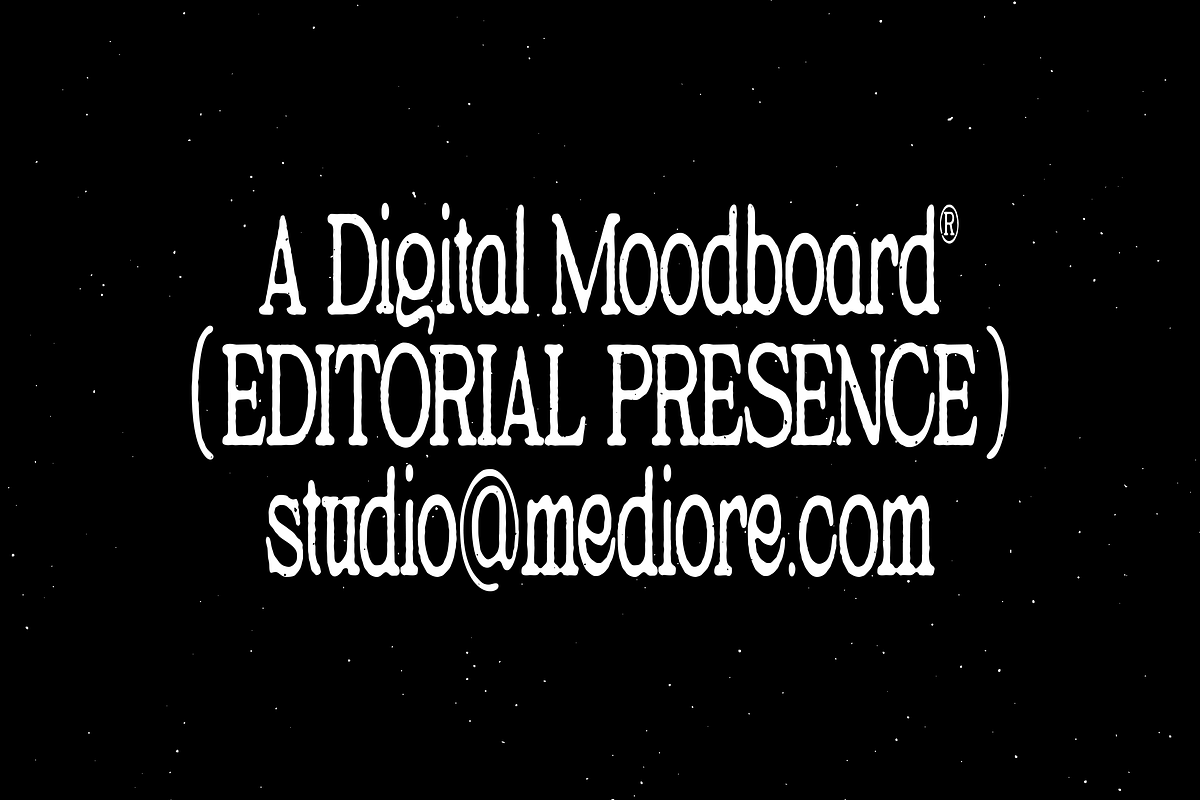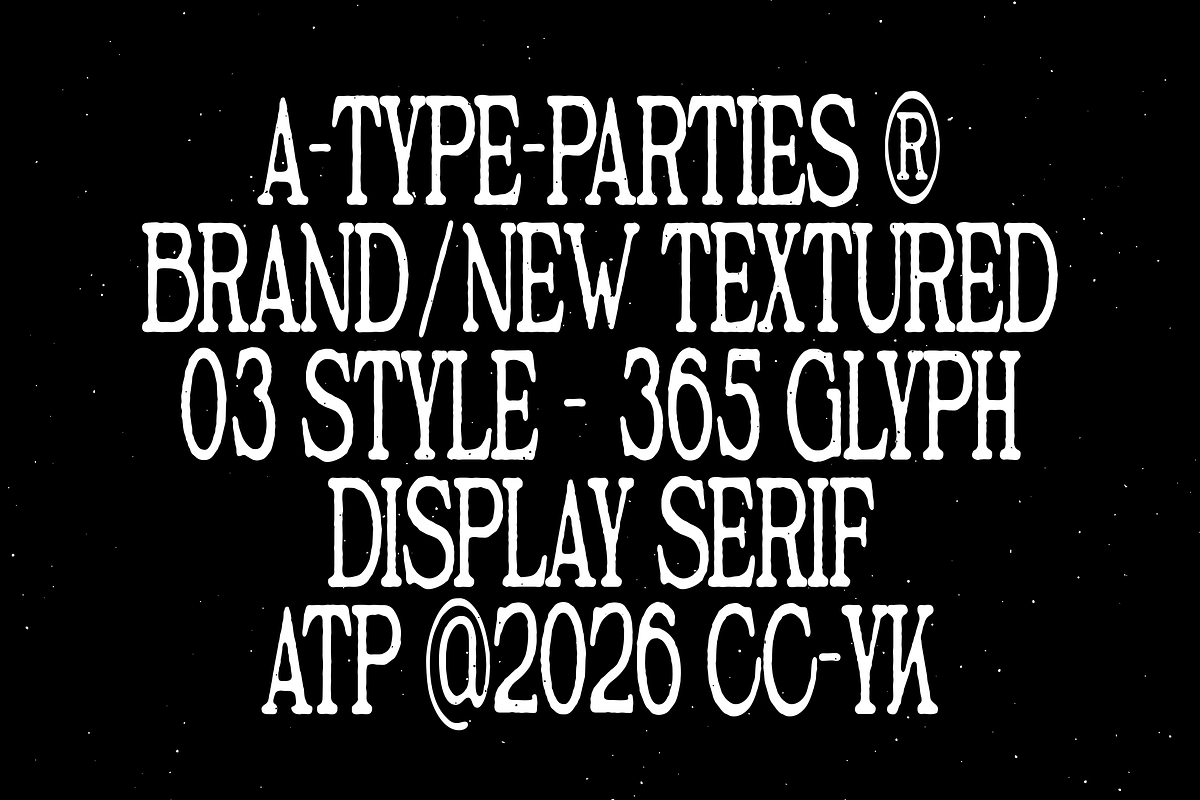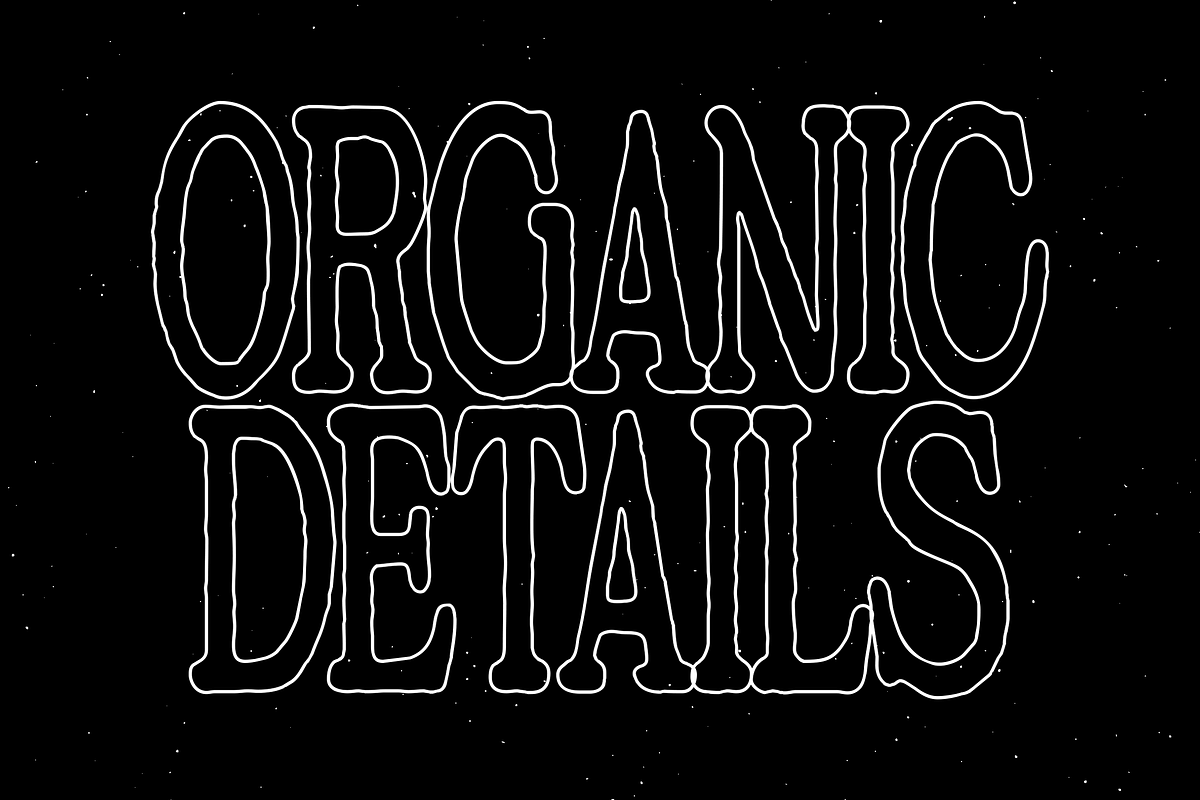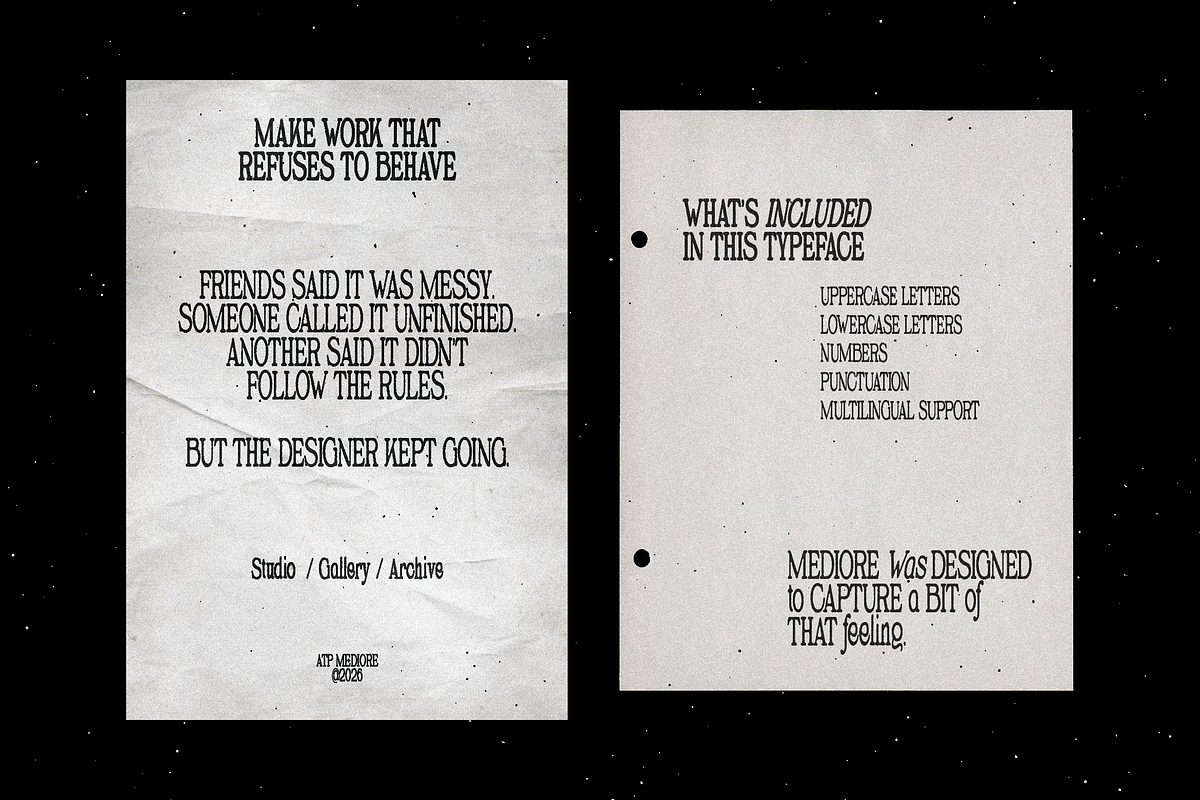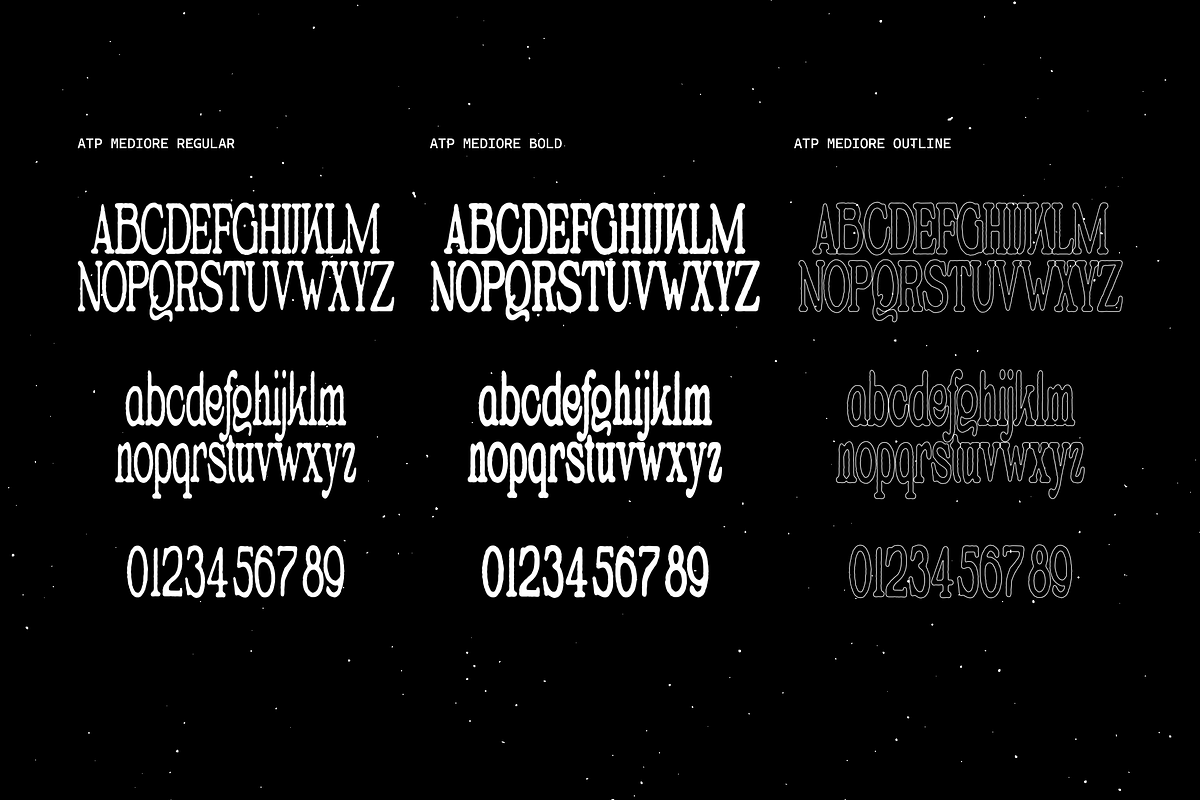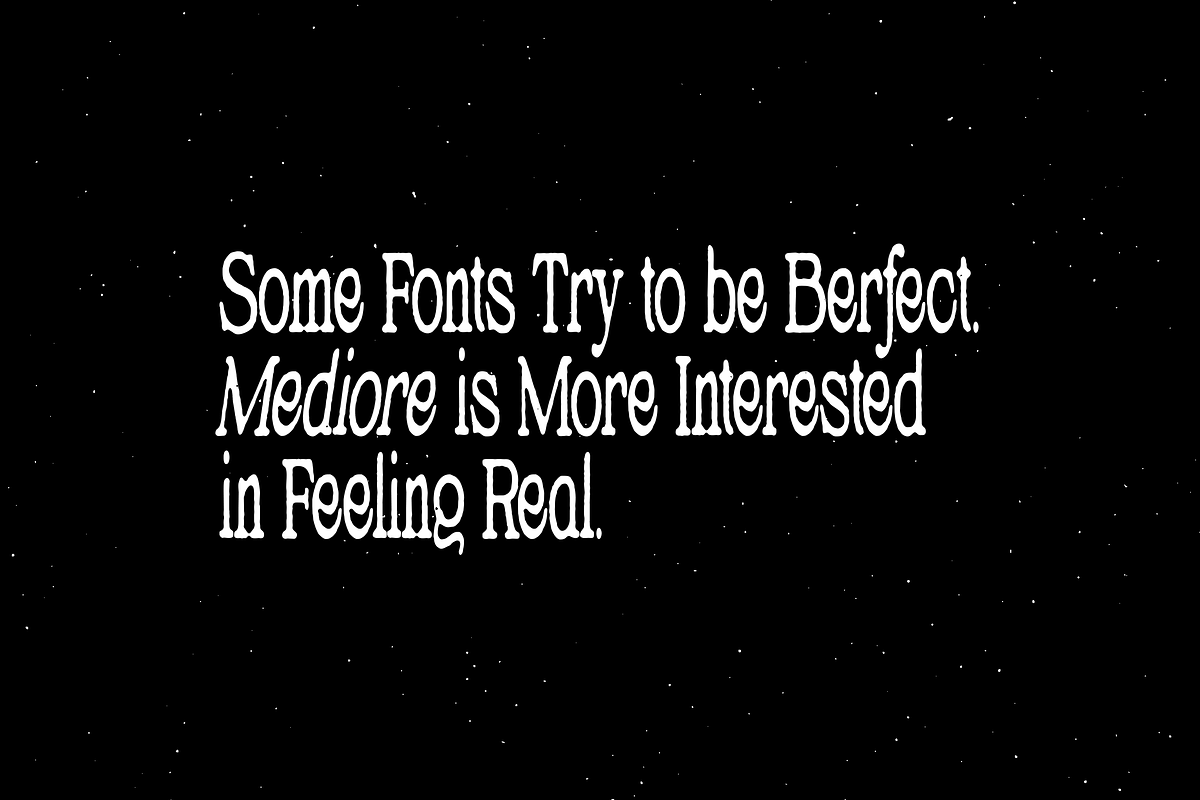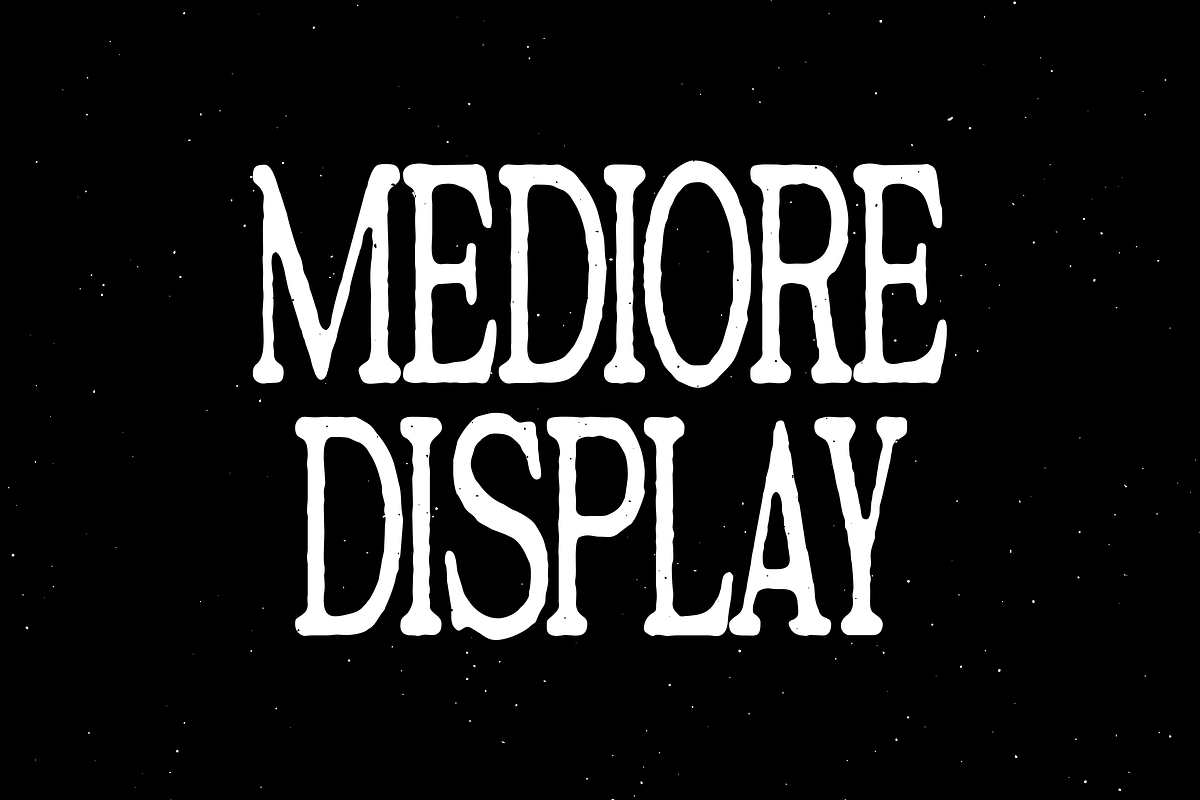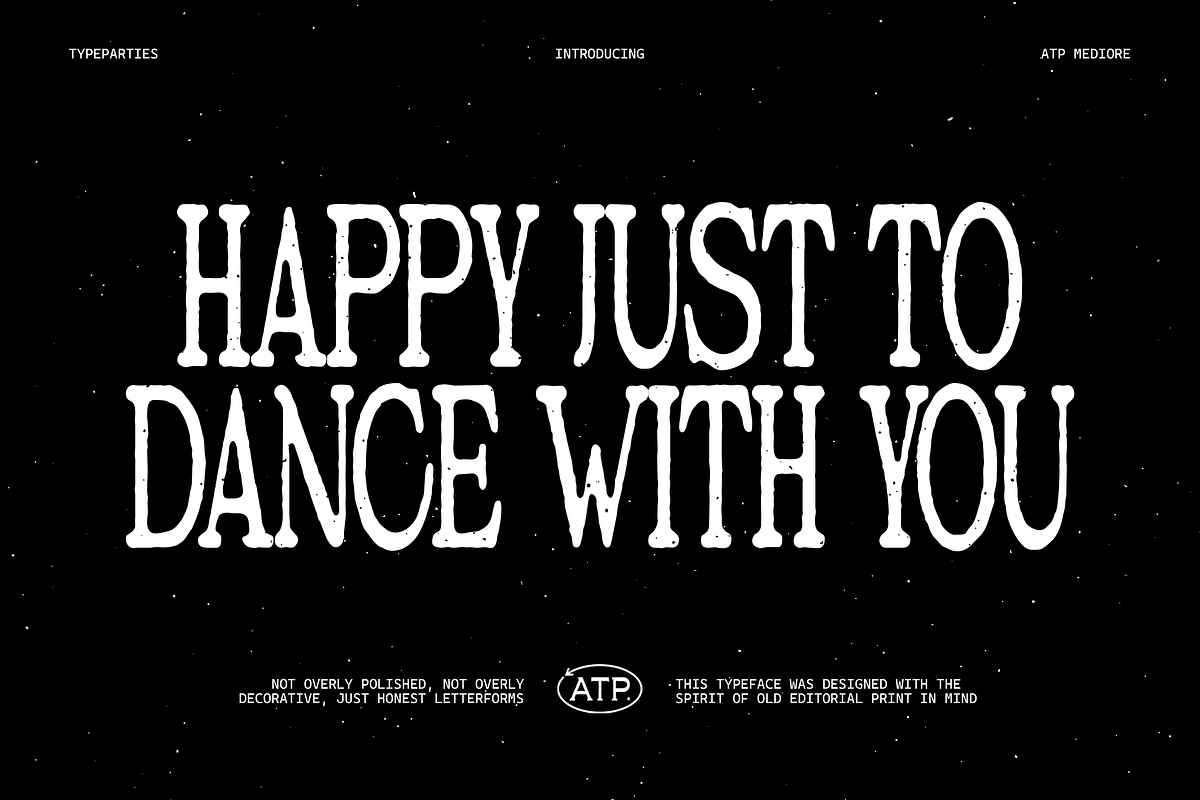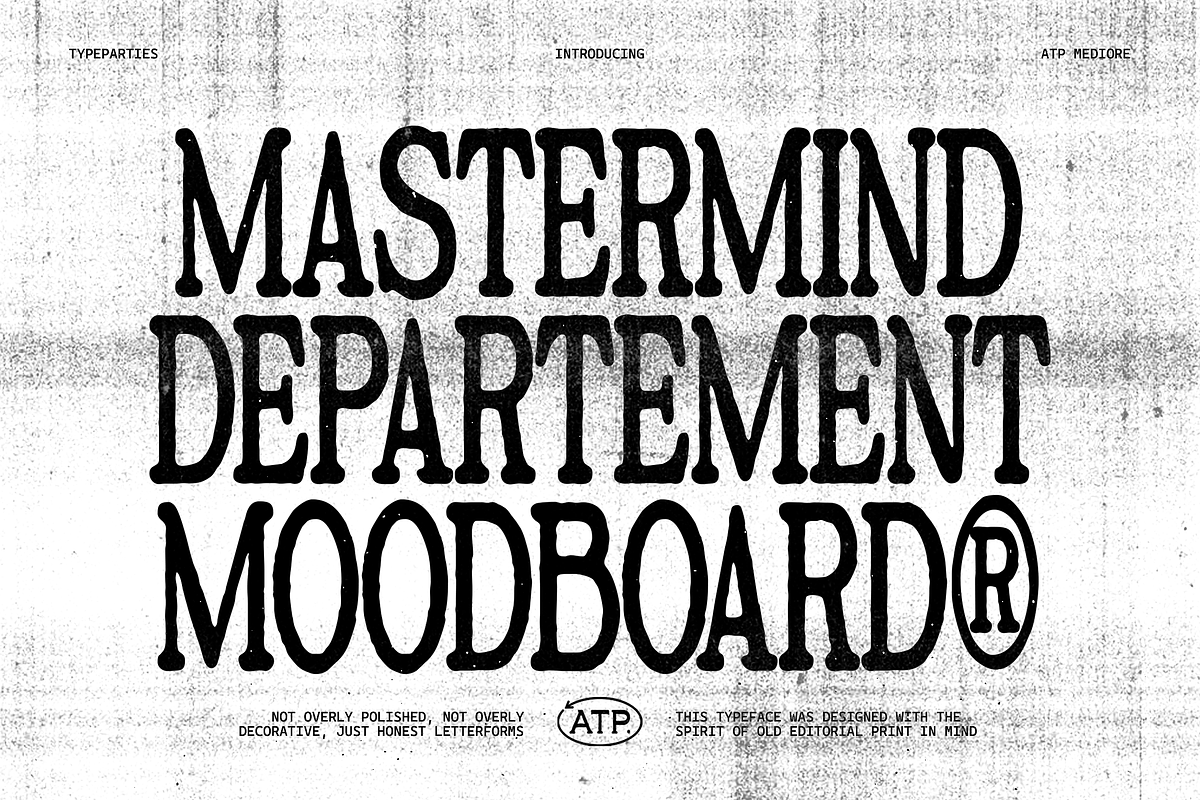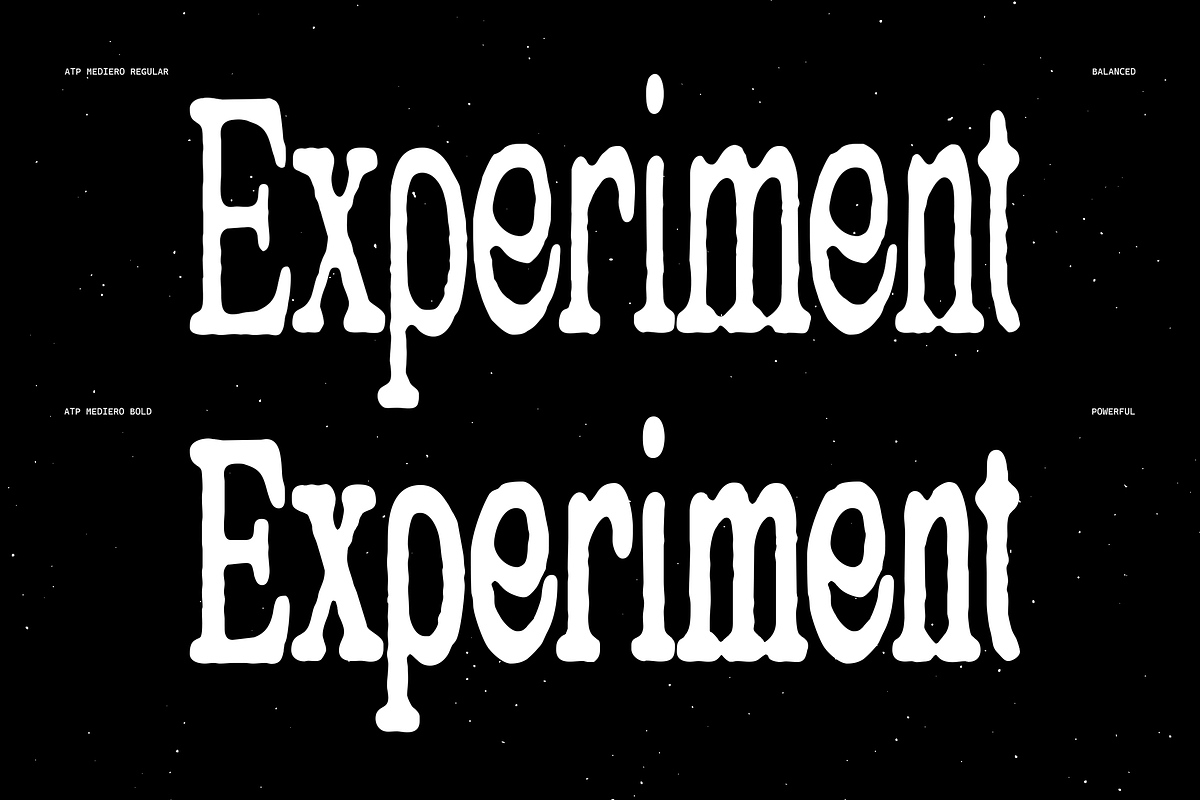
Mediore - Retro Editorial Serif
This typeface was designed with the spirit of old editorial print in mind. The kind you find in vintage magazines, worn book covers, and underground posters where the ink never looks completely perfect. Every curve carries a subtle organic texture that gives the letters a human presence, almost like they were printed from an old press and discovered years later.
Mediore sits right between classic serif tradition and raw independent design culture. The structure feels timeless, but the personality leans toward something more expressive. It works beautifully for designers who want their typography to feel thoughtful, artistic, and slightly nostalgic without losing modern clarity.